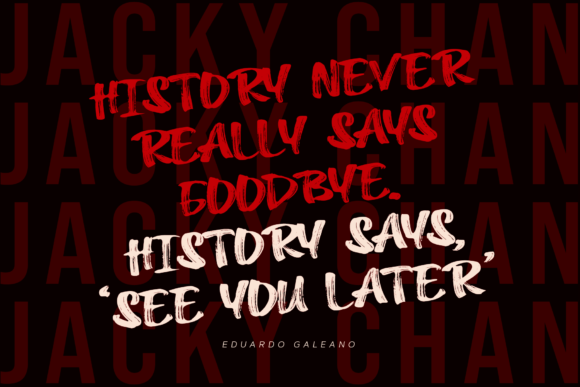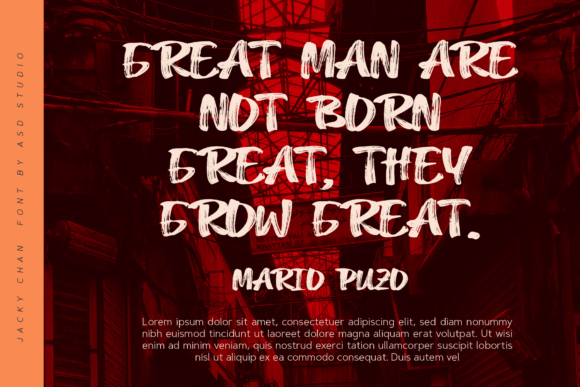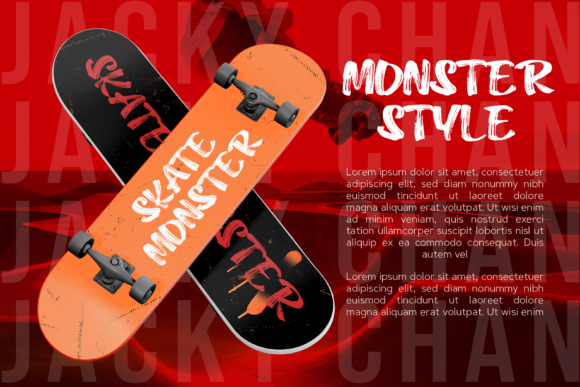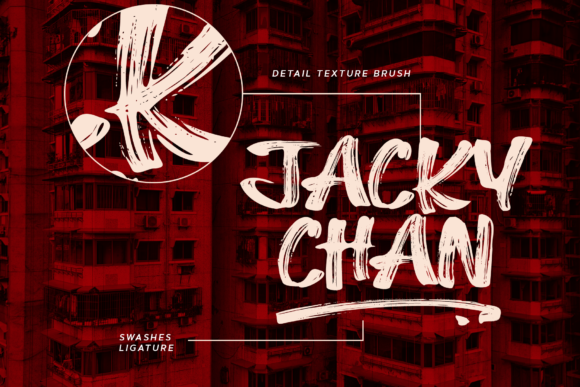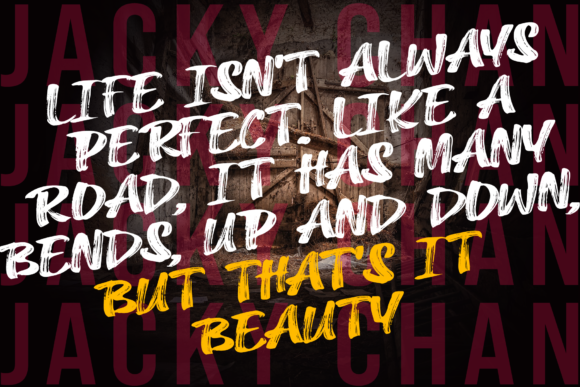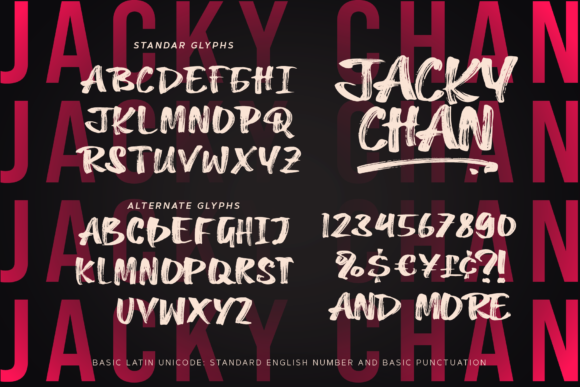
Introduction to Jacky Chan Font Font
Fonts play a crucial role in design, and the Jacky Chan Font font is a typeface that brings both character and versatility to any project. Whether you’re working on a branding project, a website, or a print design, the Jacky Chan Font font offers a unique style that can elevate your work.
Jacky Chan is a hyper-realistic display font that preserves all the high-definition details of the original handwritten letters.
Take your design to a higher level with a font that looks hand-painted, and it will grab the attention of customers and designers alike You can install it like any other font and you can use it in any color and any background you like.
Key Features of Jacky Chan Font Font
Why Choose Jacky Chan Font Font?
The Jacky Chan Font font is more than just a typeface – it’s a design tool that helps you communicate your message with style and clarity. Its unique character set and versatile design make it suitable for a wide range of applications, from elegant invitations to bold headlines.
With its carefully crafted letterforms and balanced proportions, the Jacky Chan Font font ensures readability and visual appeal across all mediums.
What makes Jacky Chan Font font special?
The Jacky Chan Font font stands out with its unique design, exceptional readability, and versatility across various design applications.